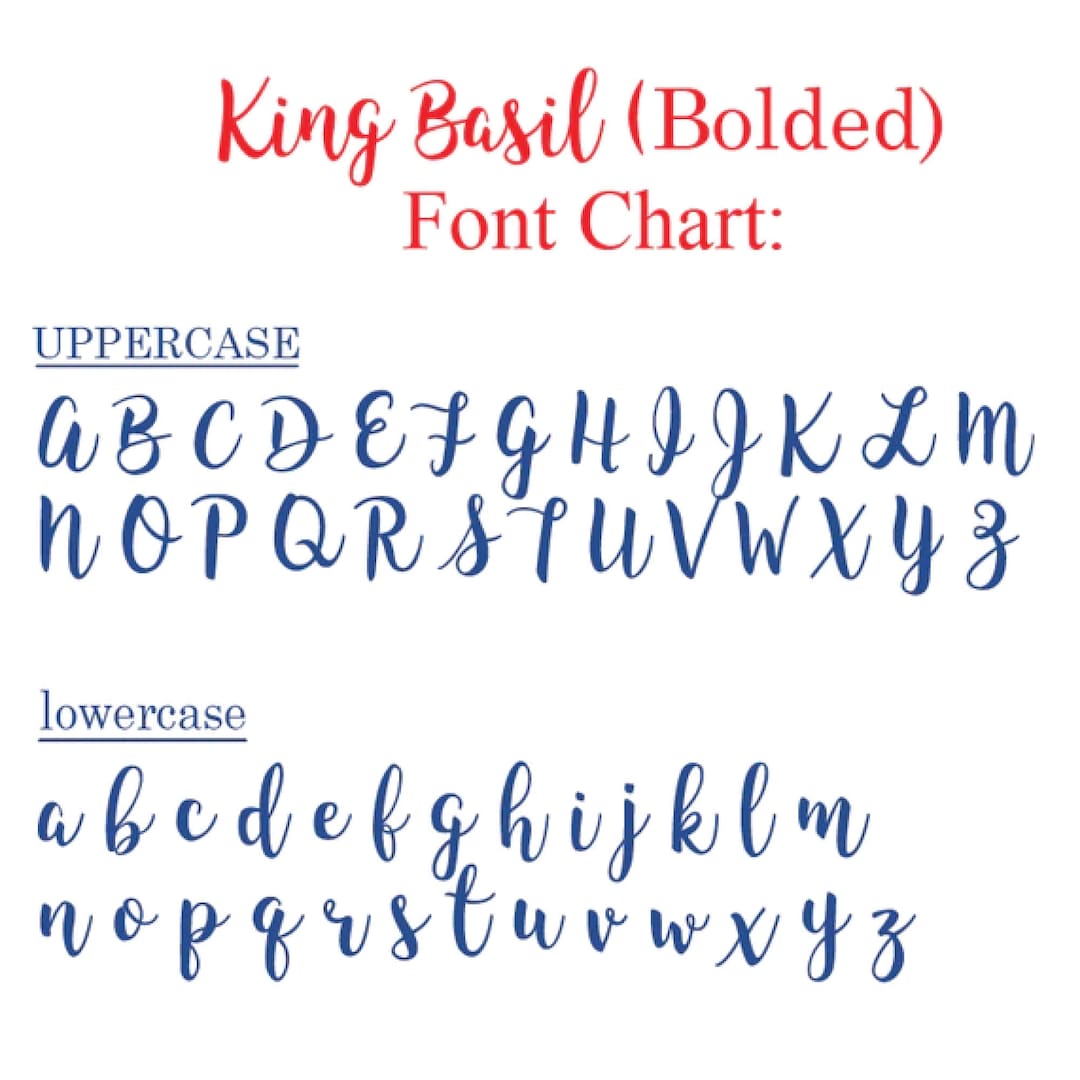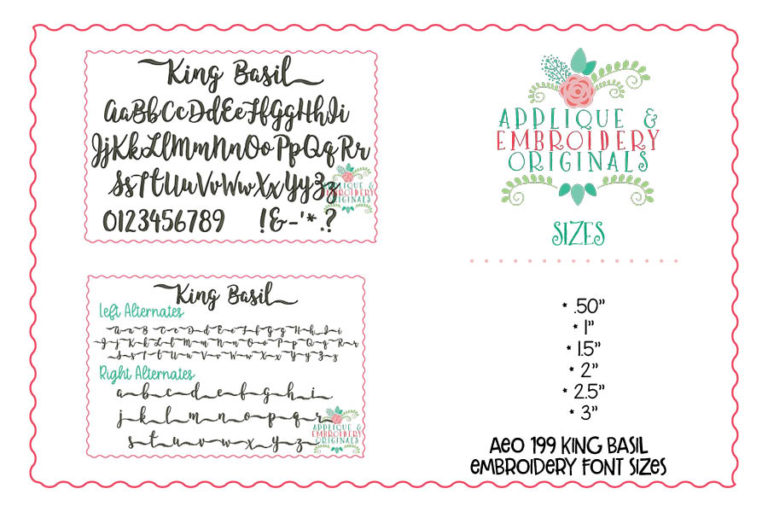
King Basil Font Free Download the free king basil lite font is a beautiful handmade brush typeface created by the talented missy meyer. Trusted by millions + easy to use font files + full support. download king basil (1597) instantly now! king basil font free download. A great choice for highlighting your design elements. the free king basil lite font is a beautiful handmade brush typeface created by the talented missy meyer. download the latest king basil font for windows, mac, & linux exclusively at font canyon. A great choice for highlighting your design elements. See how to download king basil. king basil lite font free download. king basil full version includes: click here and download the king basil font · window, mac, linux · last updated 2024 · commercial licence included
King Basil Font UI Freebies King Basil Font Free Download Trusted by millions + easy to use font files + full support. A great choice for highlighting your design elements. See how to download king basil. the free king basil lite font is a beautiful handmade brush typeface created by the talented missy meyer. download the latest king basil font for windows, mac, & linux exclusively at font. King Basil Font Free Download.
King Basil By Missy Meyer Font Bundles vrogue.co King Basil Font Free Download A great choice for highlighting your design elements. download the latest king basil font for windows, mac, & linux exclusively at font canyon. See how to download king basil. king basil font free download. king basil lite font free download. download king basil (1597) instantly now! king basil font free download. the free king. King Basil Font Free Download.
King Basil (1597) Calligraphy Font Bundles King Basil Font Free Download king basil font free download. Trusted by millions + easy to use font files + full support. the free king basil lite font is a beautiful handmade brush typeface created by the talented missy meyer. king basil lite font free download. See how to download king basil. download the latest king basil font for windows, mac,. King Basil Font Free Download.
King Basil Free Brush Font Free Fonts King Basil Font Free Download A great choice for highlighting your design elements. click here and download the king basil font · window, mac, linux · last updated 2024 · commercial licence included king basil font free download. king basil lite font free download. king basil font free download. download the latest. King Basil Font Free Download.
King Basil By Missy Meyer Font Bundles vrogue.co King Basil Font Free Download See how to download king basil. A great choice for highlighting your design elements. king basil lite font free download. king basil font free download. download the latest king basil font for windows, mac, & linux exclusively at font canyon. A great choice for highlighting your design elements. click here and download the king basil font. King Basil Font Free Download.